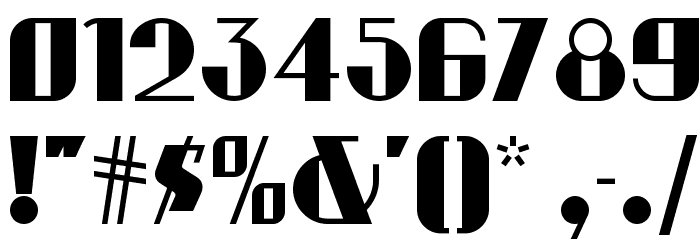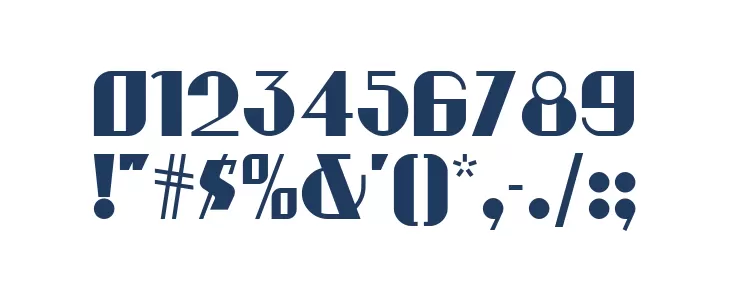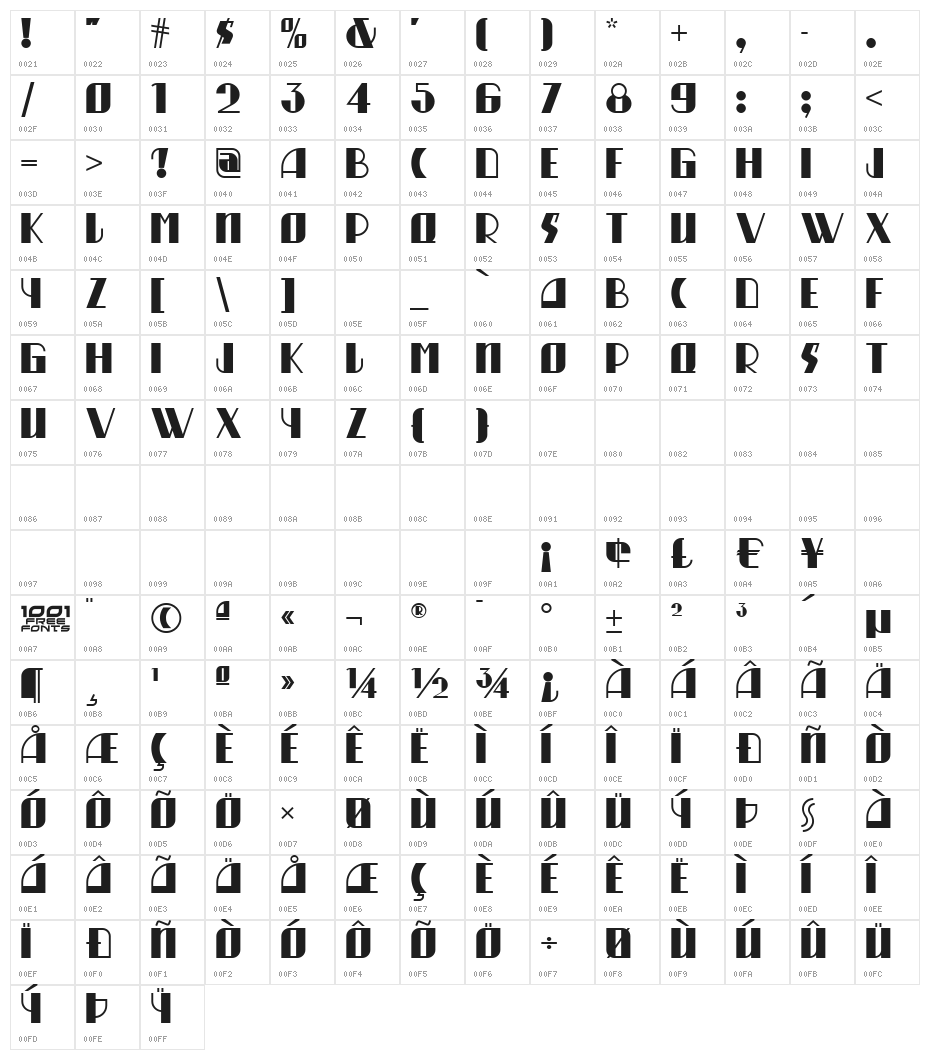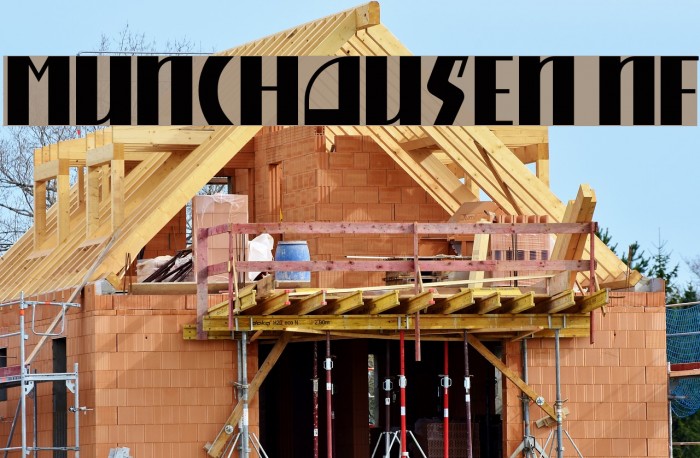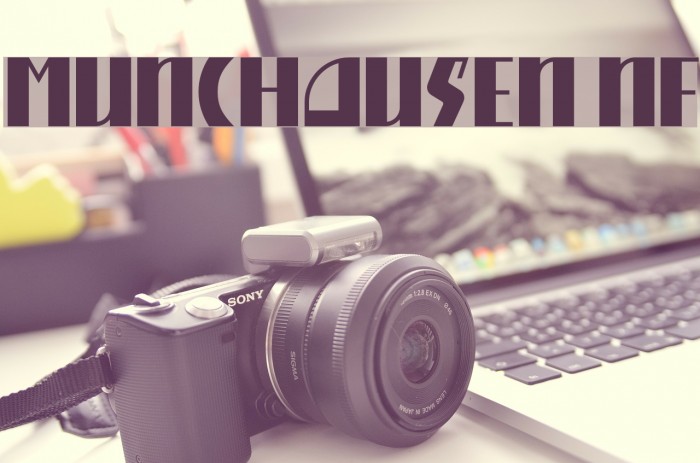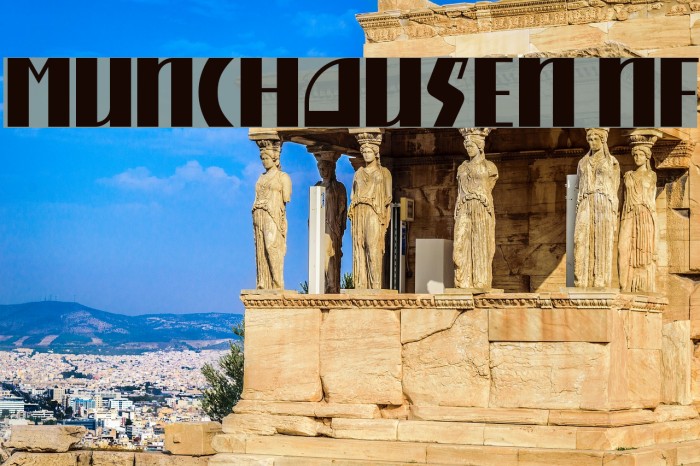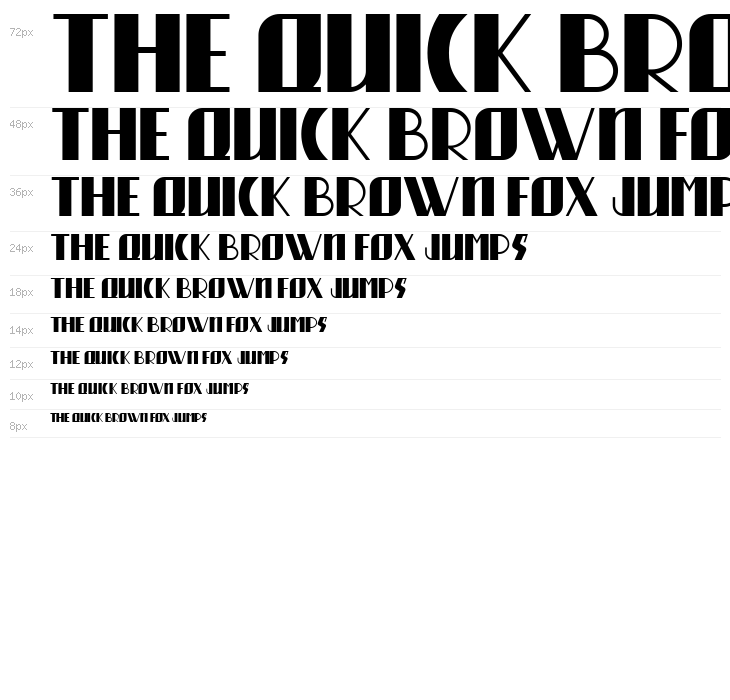
Munchausen NF Font
Munchausen NF Description
This font features a bold and striking design with a geometric and angular style. The characters are constructed with sharp edges and clean lines, creating a modern and futuristic appearance. The uppercase letters are particularly distinctive, with unique shapes that emphasize vertical and horizontal strokes. The numbers and special characters maintain the same bold and angular aesthetic, ensuring consistency throughout the typeface. This font is highly legible and makes a strong visual impact, suitable for various creative applications.